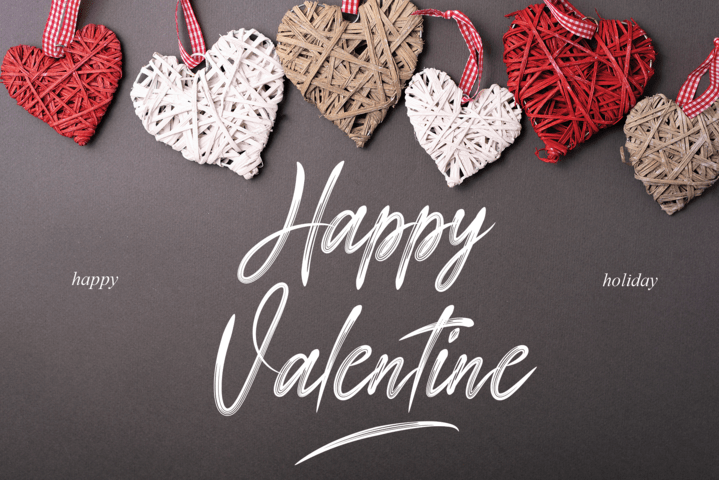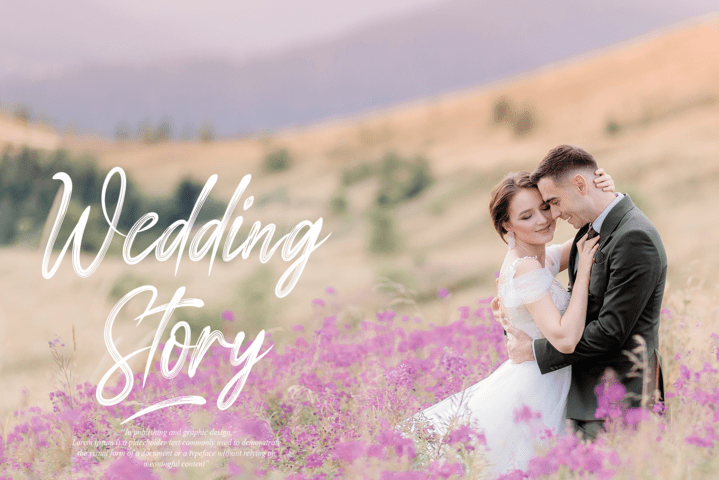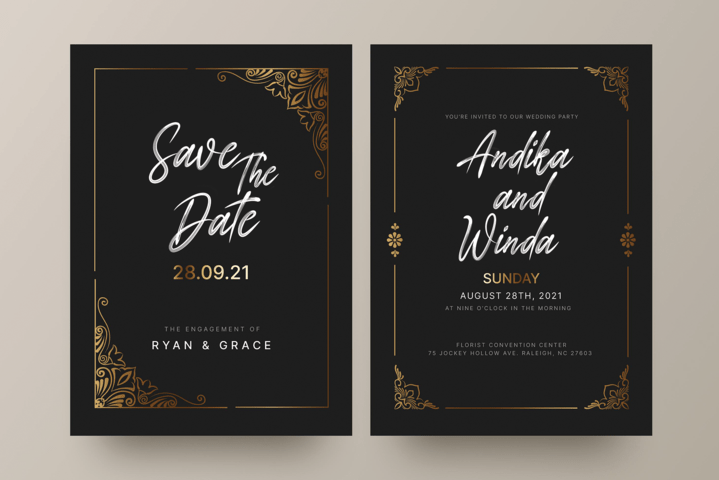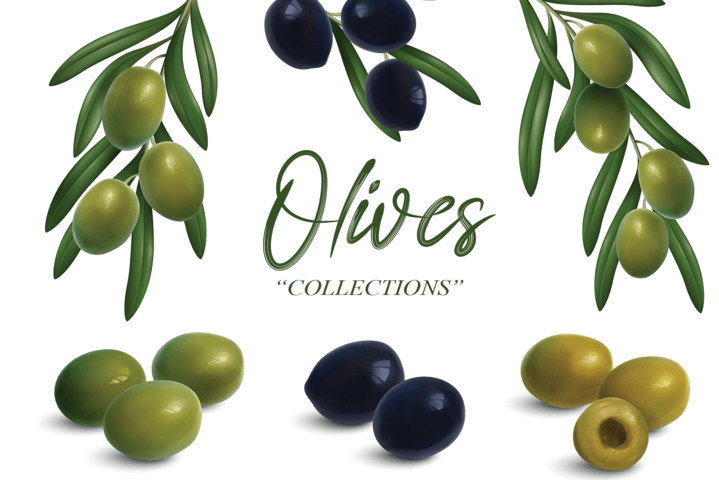
Stay In Villa Font
Stay In Villa Brush Font
It’s a beautiful and refined script font. It has a classy, elegant and modern look that can be used for logos, branding, invitations, stationery, wedding designs, social media posts, and much more!